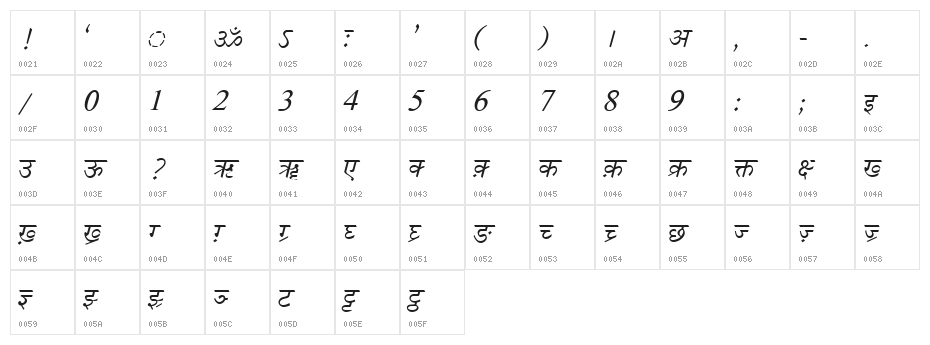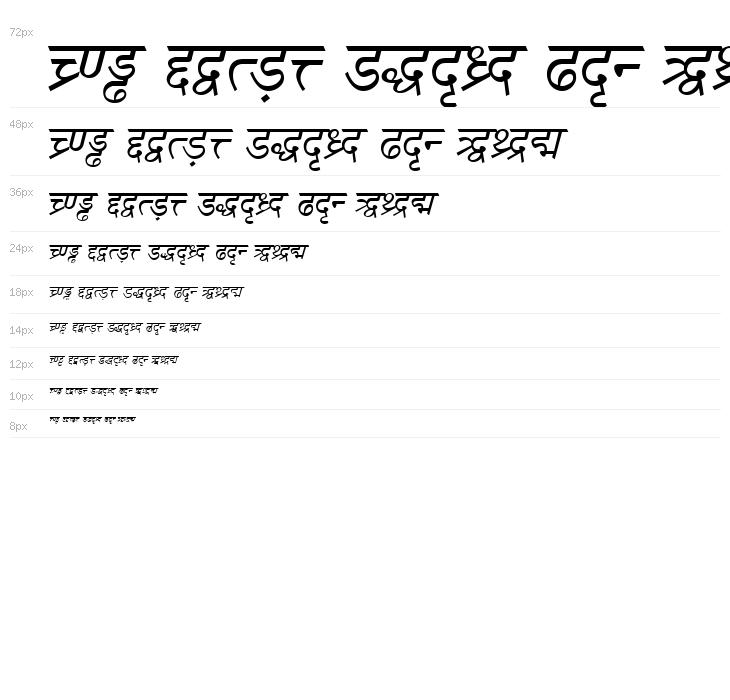
DV-TTSurekhEN-Italic Font
DV-TTSurekhEN-Italic Description
This font features a distinctive italic style with elegant curves and a flowing script-like appearance. The characters are designed with a moderate slant, giving them a dynamic and sophisticated look. The strokes are smooth and consistent, with a medium contrast between thick and thin lines. The numerals are clear and well-proportioned, maintaining the overall aesthetic of the font. Special characters are included, adding versatility for various uses. The font's design is both modern and classic, making it suitable for a range of applications.
| Overall Style | Elegant, Classic |
| Use Case | Invitations, Branding, Editorial Design |
| Proposed Projects | Ideal for use in formal invitations, elegant branding, and sophisticated editorial design. |